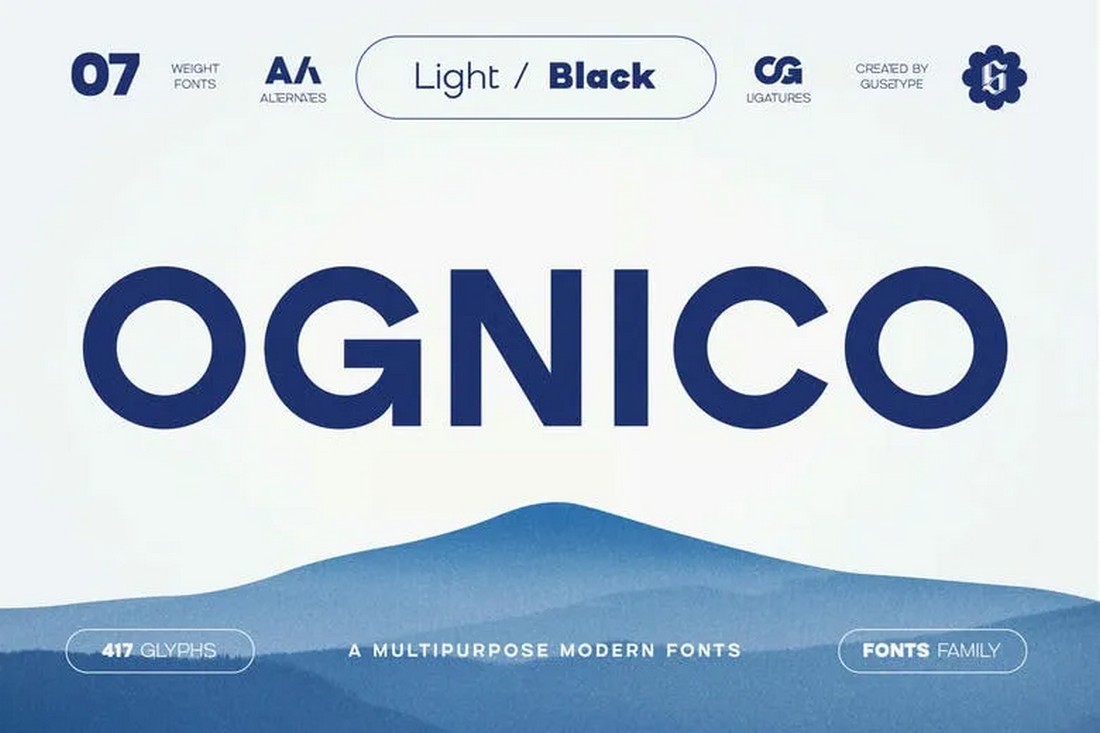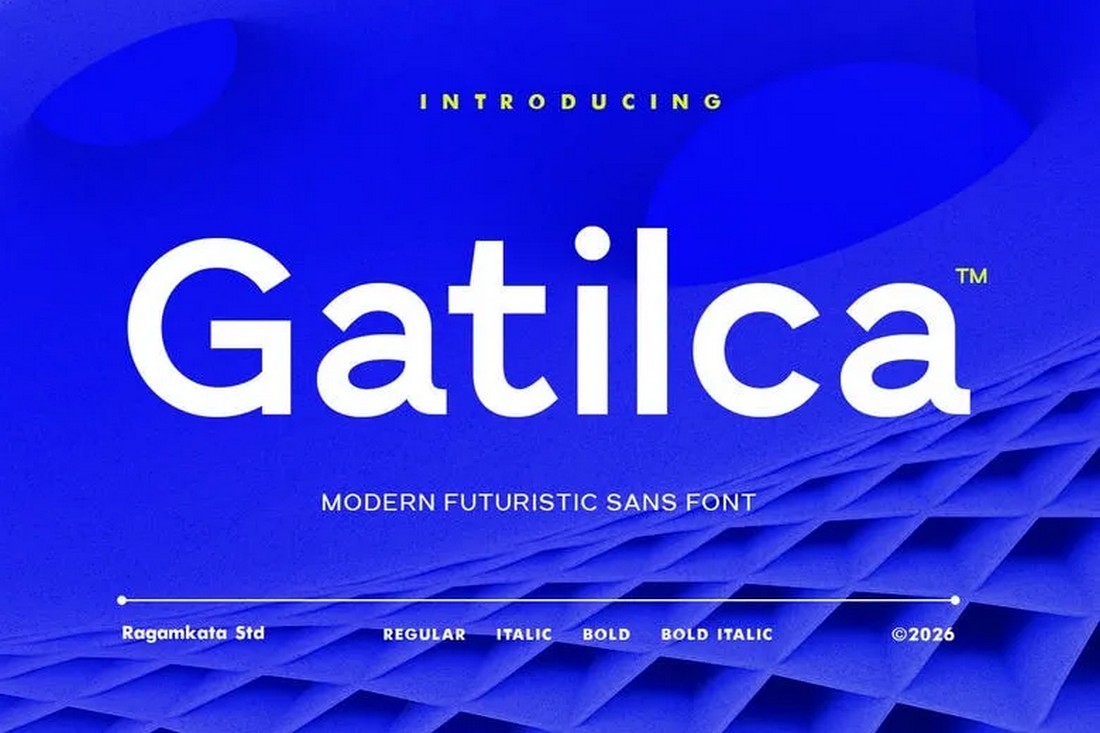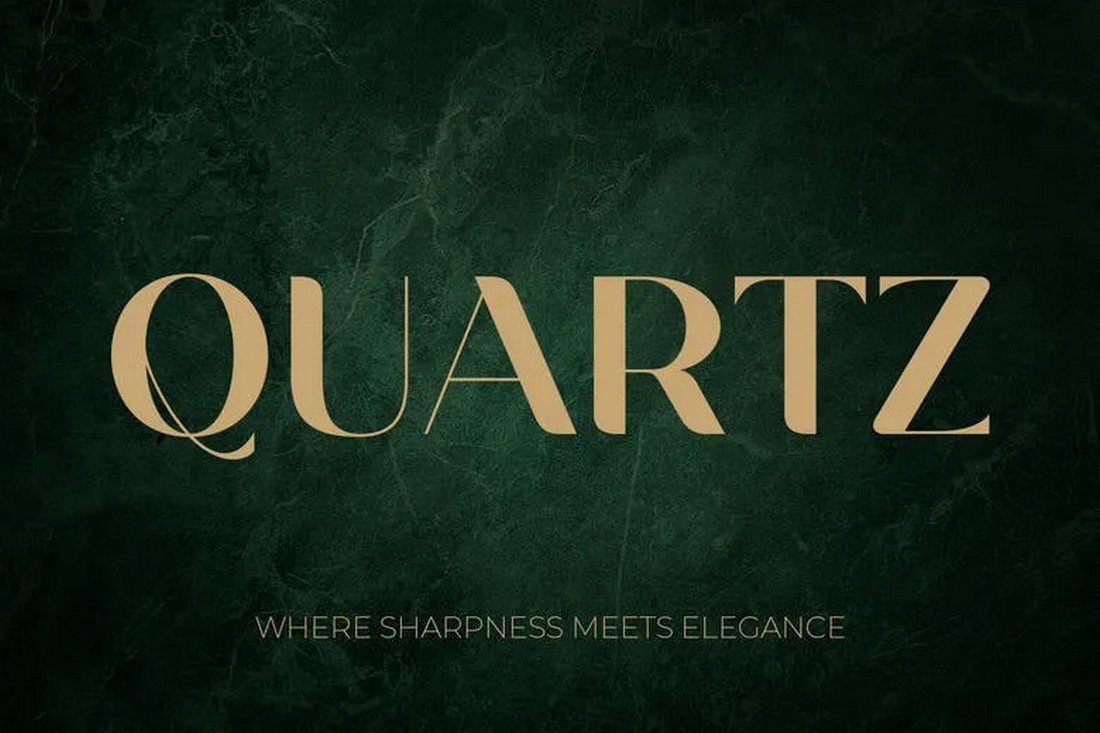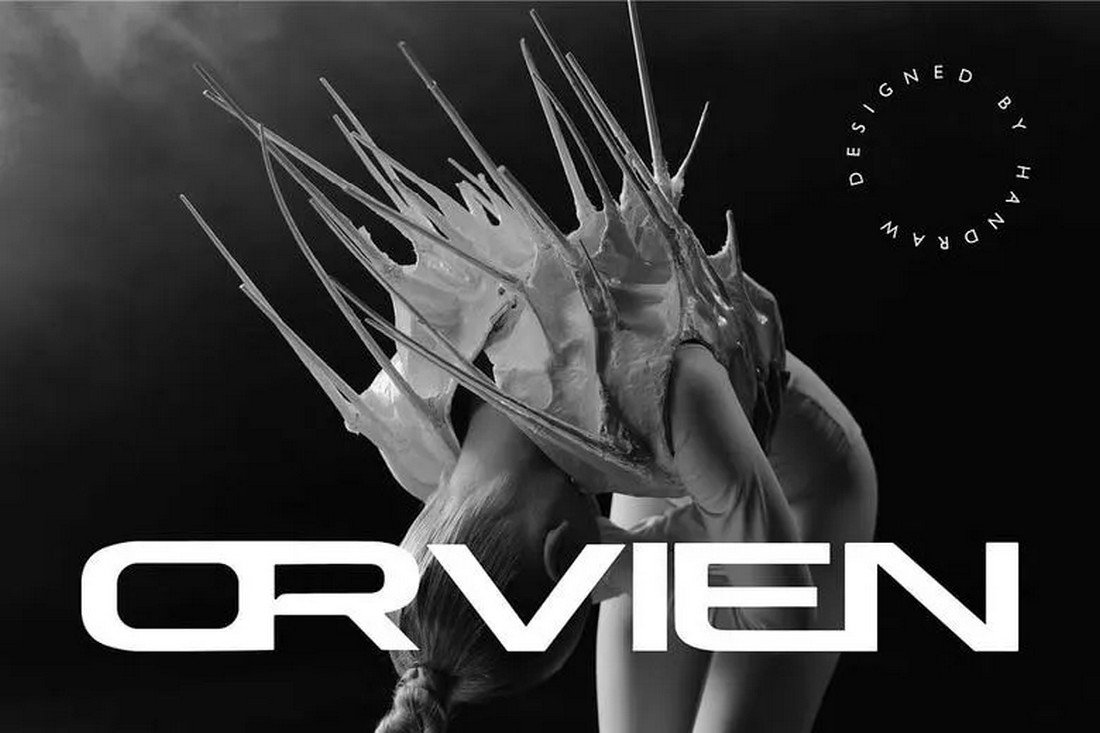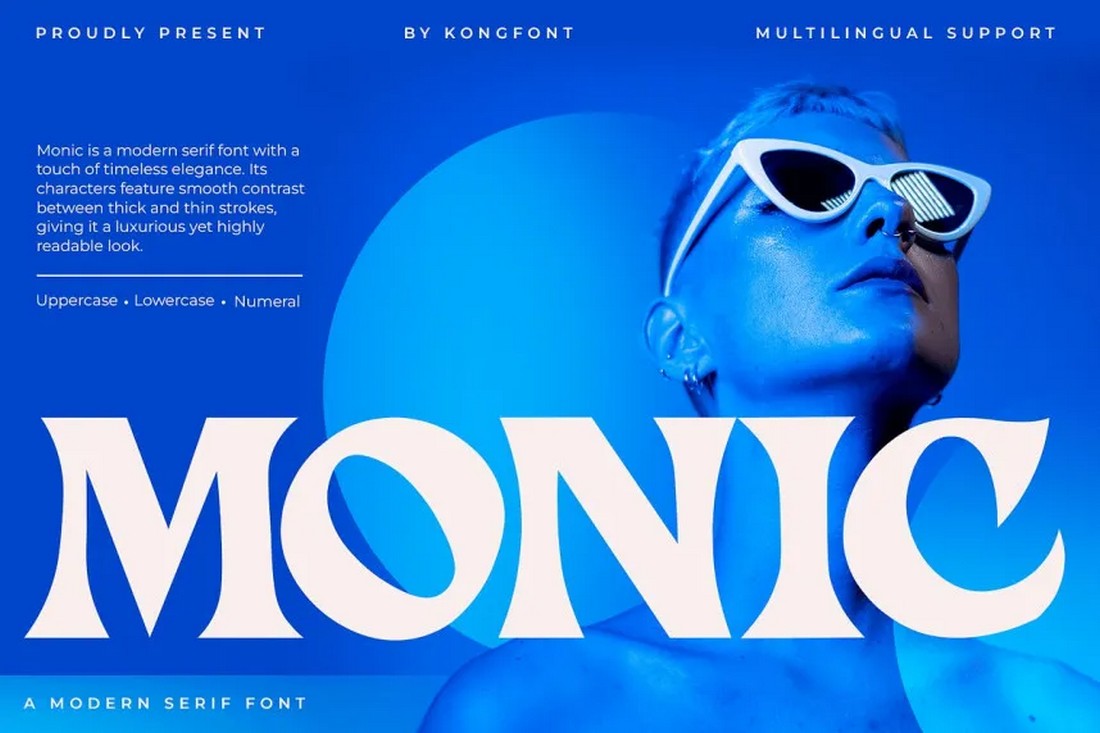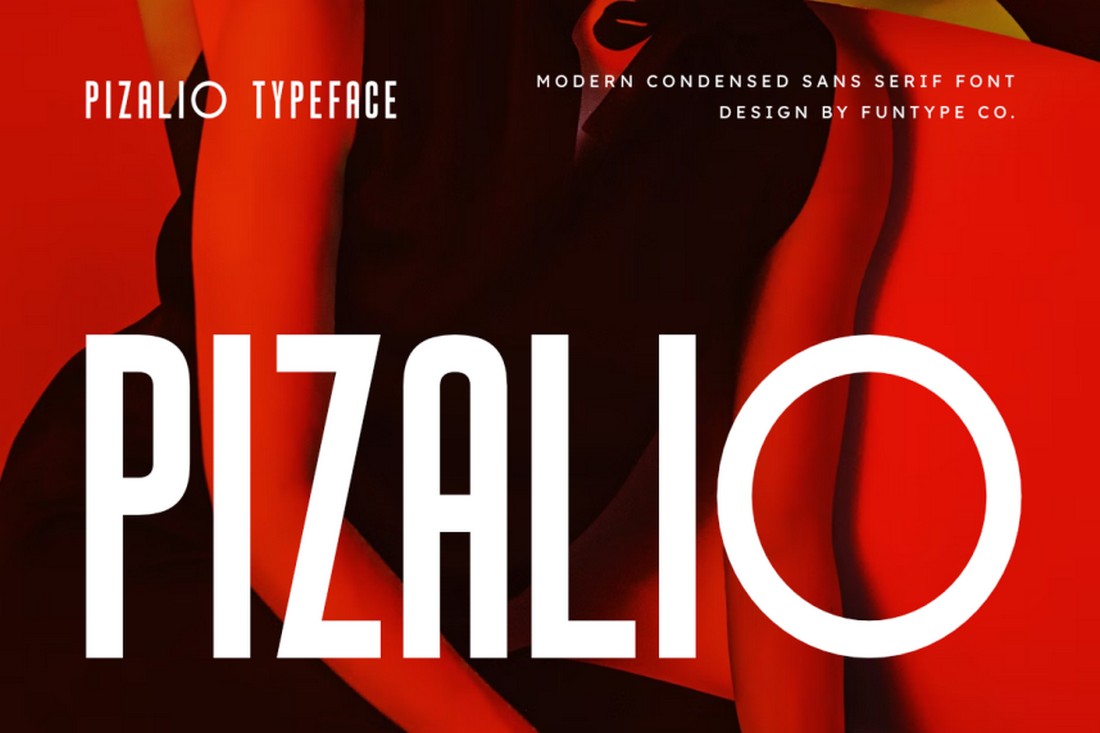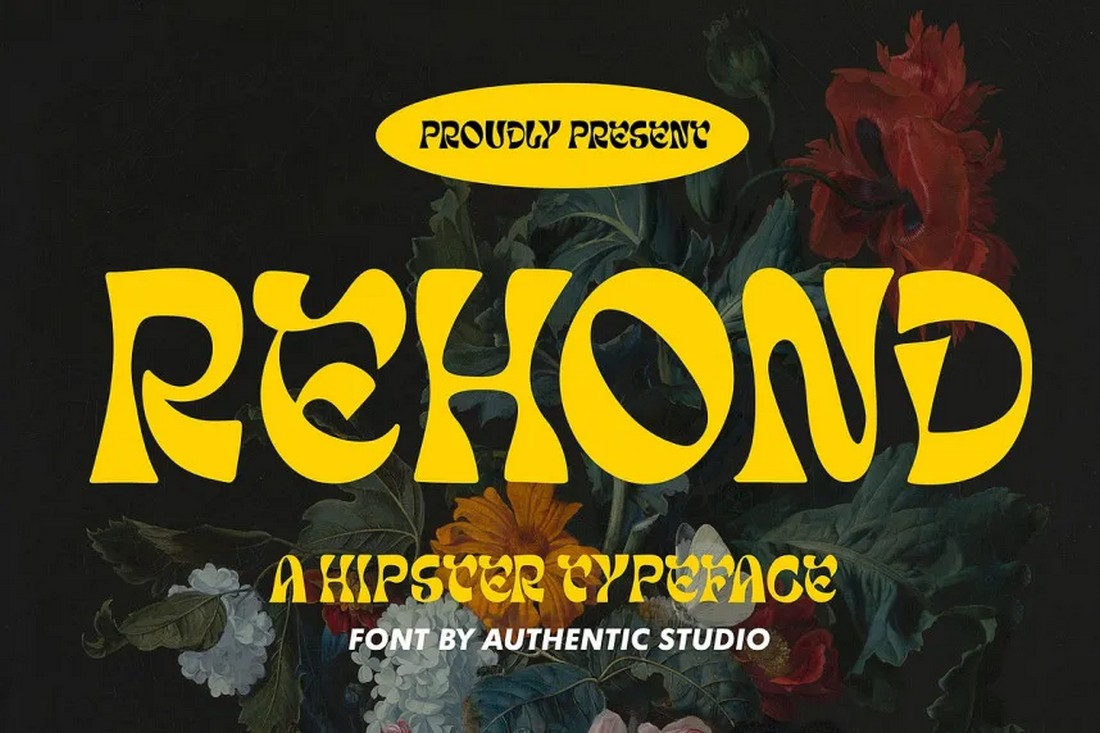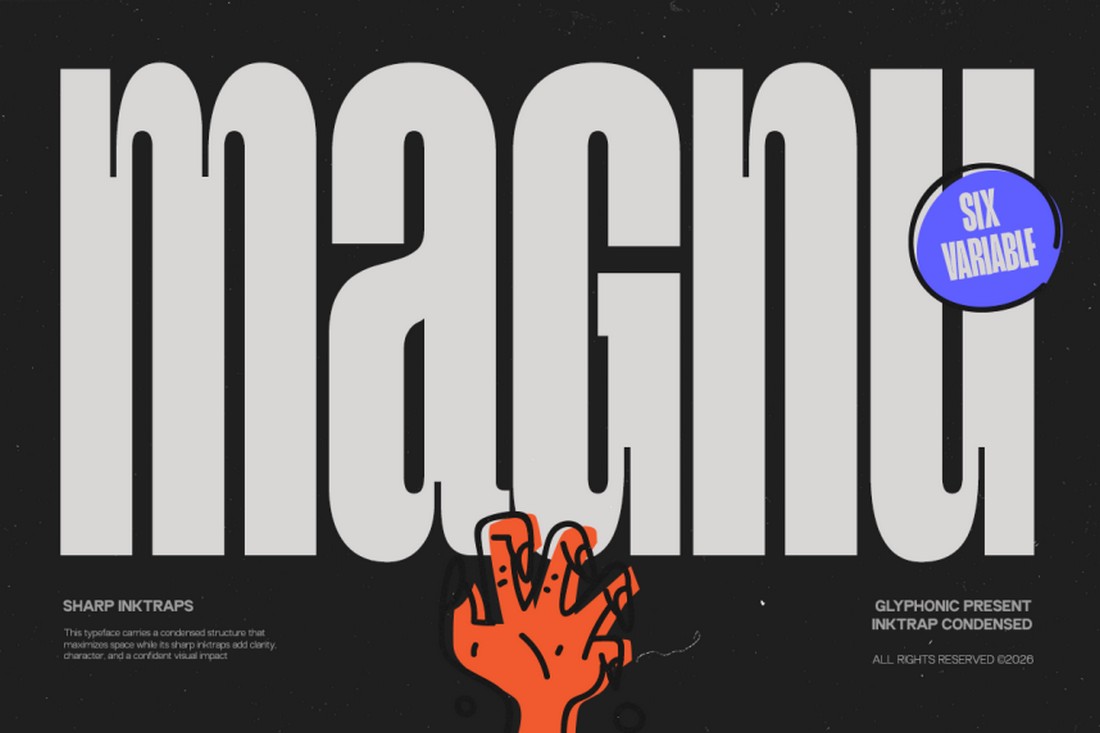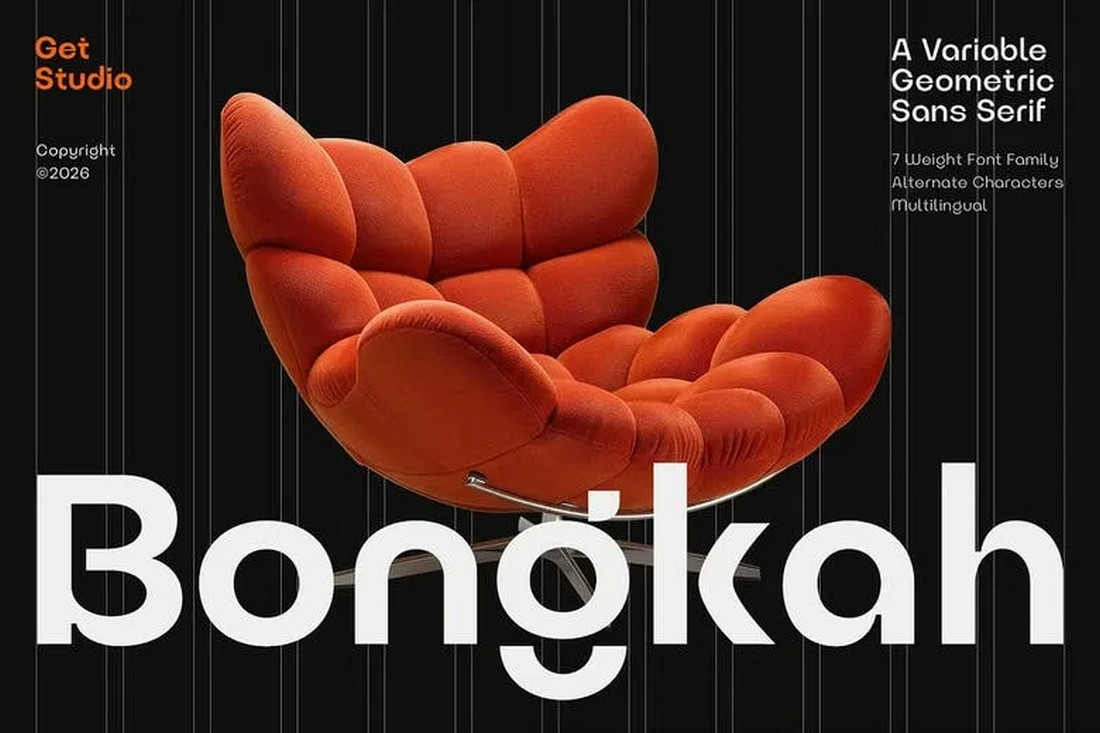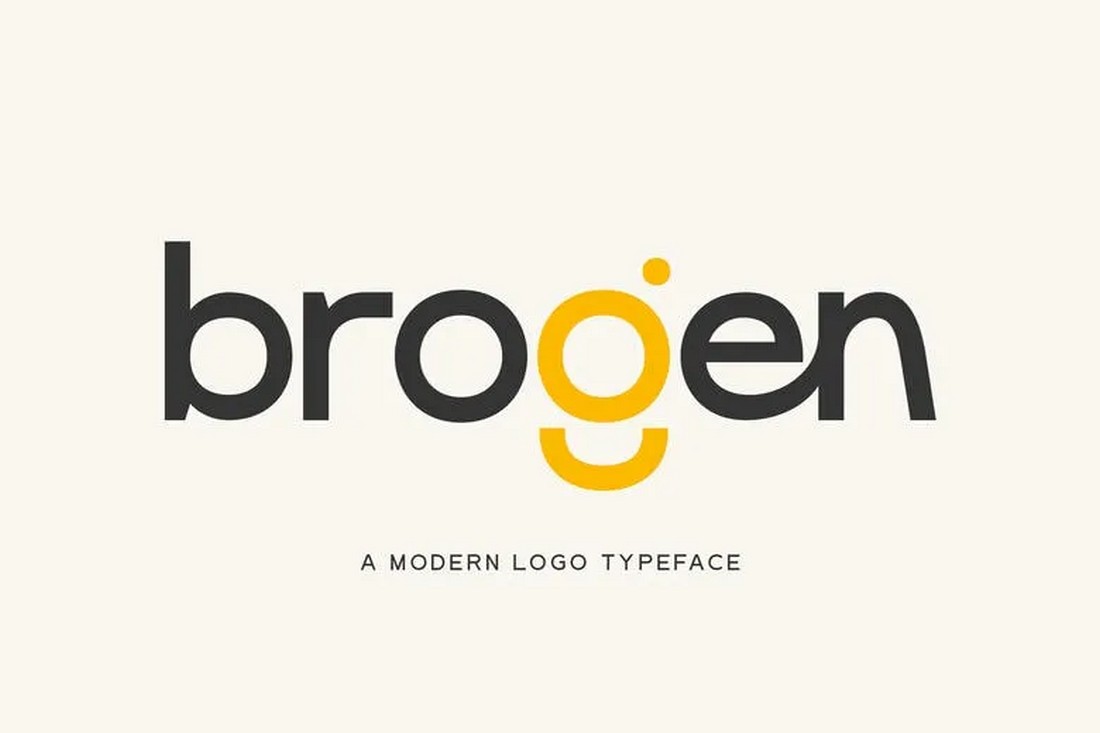
Ognico – Free Futuristic Font
Ognico is a modern display font with bold shapes and a clean geometric structure that makes headlines stand out. It works well for posters, branding, and eye-catching titles that need a strong visual presence.
Gatilca – Free Contemporary Font
Gatilca features a stylish and slightly decorative design with smooth curves and a contemporary feel. It’s a great choice for logos, social graphics, and creative layouts that need a touch of elegance.
Quartz – Free High Contrast Serif Font
Quartz is a sharp, futuristic font with angular cuts and a high-tech aesthetic. It’s ideal for sci-fi themes, gaming visuals, and modern branding that leans toward a digital look.
Orvien – Free Bold Title Font
Orvien offers a refined serif style with clean lines and subtle contrast, giving it a professional and polished appearance. It works well for editorial design, branding, and formal layouts.
Monic – Free Modern Serif Font
Monic is a clean, minimal sans-serif with balanced proportions that keep text easy to read across different sizes. It’s suitable for UI design, branding, and modern editorial layouts.
Pizalio – Free Condensed Font
Pizalio features a bold and expressive display style with unique character shapes that add personality to any design. It’s a strong fit for posters, logos, and creative headlines.
Rehond – Free Psychedlic Style Font
Rehond Display combines thick strokes with playful curves to create a distinctive and eye-catching look. It’s perfect for titles, branding, and designs that need a fun yet bold typographic voice.
Magnu – Free Inktrap Font
Magnu is a modern sans-serif with clean geometry and a professional tone, making it versatile across print and digital design. It works well for business branding, presentations, and structured layouts.
Bongkah – Free Geometric Font
Bongkah brings a bold, handcrafted feel with slightly irregular shapes that add character and texture. It’s ideal for posters, packaging, and designs that benefit from a more expressive, human touch.
Brogen- Free Elegant Font
Brogen is a strong, contemporary font with clean lines and a confident structure that makes it suitable for modern branding. It performs well in headlines, logos, and promotional graphics.
Sangu – Free Sophisticated Serif Font
Sangu is a beautiful serif font that comes with a sophisticated design. It has a perfect look for creating typography designs related to modern fashion, lifestyle, and beauty brands. The free version of the font is available for personal use.
Enoway – Free Modern Display Font
This font features a modern letter design that will add a specific beauty to your title and heading designs. It’s ideal for everything from logo designs to product labels, packaging designs, and more. It’s free for personal use.
NT Fabulous – Free Modern Serif Font
If you’re looking for a clean serif font for a professional project, this font is for you. It comes with an elegant serif letter design that’s especially suitable for corporate and high-end brands.
Jaqueline – Free Bold Script Font
Featuring beautifully flowing characters, this free bold script will help you craft beautiful titles and text for your greeting cards, business cards, and wedding invitations. It’s free to use with personal projects.
Harper – Free Sans Serif Font
If you’re looking for a big, bold font to craft attention-grabbing titles, this font is perfect for the job. Harper is a modern sans serif font with subtle stylistic character designs. It’s ideal for posters, flyers, social media, and more.
Vinesday – Free Vintage Script Font
Vinesday is a free script font featuring a classic vintage vibe. You can use it to craft packaging designs, labels, t-shirts, and everything in between.
Zillion – Free Modern Script Font
This beautiful, free script font is ideal for designing attractive greeting cards, invitations, flyers, and much more. The font comes with a beautifully flowing design and includes ligatures as well.
Rinjani – Free Sans Serif Font
Rinjani is a stylish, modern sans serif font that comes with a set of all-caps letters. It also has outline and fill style fonts with 300 glyphs to choose from.
Winter – Free Handwritten Font
You can design beautiful posters, signage, and product labels using this free font. It comes with a beautiful handwritten letter design, featuring a classic vintage vibe.
Refani – Free Nostalgic Serif Font
This stylish font comes with a creative and nostalgic design featuring classic retro elements. It features serif characters with bold letterforms that are perfect for crafting big bold titles.
Missionary – Free Elegant Serif Font
You can use this free serif font to design modern and elegant typography for your design projects. The font includes uppercase and lowercase characters and it’s free to use with your personal projects.
Maderon – Free Condensed Font
If you’re looking for a font with a unique letter design to craft attractive headings, this font is perfect for the task. It features narrow and condensed letters with bold designs. The font is free for personal use.
Rovalen – Free Modern Serif Font
Rovalen is one of the most stylish fonts on our list. It features a modern serif letter design decorated with curves and serifs. The font is perfect for fashion, lifestyle, branding, and many other types of designs.
Armature – Free Sans Serif Font Family
You can download this font for free to craft unique titles and headings for your modern design projects. The font features a stylish sans-serif letter design and it comes in multiple font weights to choose from.
Gilmoray – Free Elegant Sans Serif Font
The clean-cut look of the font letters gives it a very professional look and feel. It will fit in nicely with magazine covers, posters, advertisements, and various other designs. It’s free for personal use.
Luxiachy – Free Luxury Serif Font
Make your logos and titles look luxurious and expensive with this free serif font. It comes with an elegant letter design for crafting designs for high-end brands. The font is free to use with personal projects.
Raginy – Free Stylish Serif Font
Another elegant and stylish serif font you can download for free. This font is most suitable for fashion and lifestyle-themed designs for adding attention-grabbing titles. It’s free to download and use with personal projects.
Lemonade – Free Creative Script Font
Lemonade is a creative script font featuring a unique handwritten-style letter design. This font is ideal for greeting cards and even branding designs. It’s free for personal use.
Roklin – Free Classic Font
This classic and stylish font is perfect for many different types of title and heading designs. You can use it to design typography for everything from posters to custom t-shirts and even brand logos.
Longies – Free Retro Groovy Font
This free font has a very distinctive letter design inspired by groovy typography designs from the 1960s and the 70s. The font is perfect for signage designs and packaging designs.
Strong Heart – Free Handwritten Font
This is a two-in-one font duo that goes really well together. The free version of the font includes the handwritten font from this pair and it’s perfect for adding a personalized look to your designs.
TF Spermo – Free Playful Font
If you’re looking for a unique and creative font with a playful look and feel, this font is perfect for your project. It comes as a free download and you can use it with personal projects.
Mac Sans – Free Modern Display Font
A clean and professional-looking font with a modern letter design. This font is a sans-serif font with a clean-cut look and you can use it for free with your personal projects.
Agina – Free Elegant Serif Font
Agina is a free serif font that comes with an elegant letter design. It’s ideal for crafting branding designs and titles for luxury brands. The font is free for personal use.
Sorhe – Free Stylish Font
This font also comes with an elegant serif lettering design. It will go along great with your high-end branding and product packaging designs, especially related to feminine brands.
Ciroya – Free Bubble Display Font
A fun and playful font featuring a bubble-style letter design. This font is perfect for adding an energetic and creative look to your titles and headings. It’s great for labels and branding designs too.
Thurof – Free Retro Bubble Font
Inspired by classic retro letter designs, this font also comes with bubble letters that look quite cute and adorable. You can use it to craft classic titles and headings for various print and digital projects.
Bifaser – Free Vintage Victorian Font
If you prefer vintage fonts with timeless designs, this one is perfect for your project. It features an elegant letter design inspired by typography designs from the Victorian era.
Rengard – Free Minimalist Font
This font features a very minimalist look with its thin and elegant letter designs. It’s available in regular and italic styles. And the font is free to use with your personal projects.
Nordin Slab – Free Vintage Font
This is a vintage-style slab serif font that comes in regular and outline styles. It features a tall and narrow letter design that will add an extra cool look to your titles and headings. It’s also free for personal use.
Astila – Free Modern & Playful Serif Font
If you’re looking for a stylish serif font with beautiful decorative elements, this free font is a must-have for you. It comes with a set of beautiful letters featuring 100 alternate characters and ligatures. It’s free for personal use.
Zanna – Free Modern Serif Font
This font has all the right characteristics of a modern logo font. You can use it to design elegant logos, labels, titles for posters, and so much more. It’s free to use with your personal projects.
Regarn – Free Variable Display Font
Regarn is a modern font that features subtle retro elements. It’s perfect for everything from designing poster titles to magazine covers and website headers. You can use it for free with personal and commercial projects.
Asikue – Free Classy Bold Serif Font
Askue is a classy font with a bold letter design. This font comes with serif letters that blend 70s retro design elements with modern typography. It’s also free for commercial use.
Crossbar – Free Hand-Drawn Font
This is a hand-drawn brush font that comes with an attractive and energetic design. It’s ideal for crafting big titles for posters and flyers. The font is free for personal use.
Quitery – Free Stylish Serif Font
This font has the perfect look for designing modern typography for fashion, lifestyle, and feminine designs. It’s especially great for branding and product packaging designs. It’s free to use with personal projects.
Choco Bold – Free Retro Font
Choco Bold is a creative retro-style font that comes with a set of bold characters. It also has unique decorative elements that give it an identity of its own. You can use this free font with your personal projects.
Beckan – Free Retro Display Font
The trendy retro look of this font makes it a great choice for crafting logos and branding designs for fashion brands. It comes in regular and outline styles. The font is free for personal use.
NT Epika – Free Modern Serif Font
This is an elegant font that has a set of serif characters. This font is ideal for modern and luxury brands, especially for designing logos, labels, and signage. The free version can be used for personal projects.
Mexa – Free Elegant Serif Font
Mexa is another beautiful free font you can use to craft unique typography designs. It comes with a stylish serif letter design mixed with retro elements. This font is also free for personal projects.
Cotta – Free Elegant Serif Font Font
This is one of the best free serif fonts you’ll find on our list. It features elegant letter designs with beautiful curves to give your typography a bold new look. This font is free to use with personal and commercial projects.
Loving Ambros – Free Luxury Sans Serif Font
Looking for a more extravagant font with stylish letters? Then this free sans serif font is for you. It features a beautiful design that’s been crafted by combining script font with a serif font style. You can use it for free with personal projects.
Lettown Hills – Free Display Font
You can craft beautiful titles and headings for all kinds of designs using this stylish display font. It’s ideal for logos, product labels, and website headers too. The font is free to download and use with personal projects.
Crucial – Free Sharp Serif Font
A clean and professional font with a sharp look. This font is great for all your professional design projects, especially for big brands and corporate businesses. The medium and italic versions of the font are free to use with commercial projects.
Vistol Black – Free Sans Serif Font
Vistol Black is a modern sans serif font family that includes 18 different fonts. It has clean letter designs that are ideal for professional projects. You can download a free version of the font to use with your personal and commercial projects.
Cossines – Free Classy Sans Serif Font
This is an all-caps font you can use to craft big bold titles and headings for your designs. It has clean and modern letters as well. You can use this font for free with your personal projects.
Morning Routine – Free Handwritten Font
If you want to give a creative personal touch to your designs, this free handwritten font is perfect for your project. It features a hand-crafted letter design with tall and narrow letters. It’s also free for personal use.
Ramus – Free Creative Serif Font
Ramus is a serif font family that includes 5 different weights. The free version includes the regular font with basic features. You can use it for free with your personal projects.
Perfect Moment – Free Handwritten Brush Font
This font is for fans of brush-style fonts. It comes with a creative handwritten brush letter design that will fit in perfectly with your flyer and poster designs. It’s free for personal use.
Nortune – Free Bold Title Font
Nortune is a bold title font that features a letter design inspired by modern-vintage typography. It’s perfect for crafting big titles for labels, posters, T-shirts, and much more. You can download it free to use with personal projects.
Brolimo – Free Elegant Modern Font
You don’t always have to spend money to design elegant titles and headings. With this free font, you can craft amazingly beautiful titles at no charge. The free font is part of a big premium font family and you can use it with your personal projects.
Josefine – Free Elegant Serif Font
Josefine is a beautiful serif font. Unlike most other serif fonts, this one features unique serifs that add a personality to each letter. The font is perfect for modern luxury designs. It’s free for personal use.
Better Winter – Free Calligraphy Font
This free font comes with a beautiful calligraphy design that will make your designs much more attractive. It’s especially suitable for social media posts and designs related to the fashion industry.
Little Birds – Free Vintage Script Font
If you’re looking for a font with a different style of design to make your headings stand out, this free font will come in handy. It features a modern-vintage letter design unlike any other font on our list.
Wonder Night – Free Creative Display Font
Whether you’re crafting a poster for a children’s event or designing a book cover, this is a font that will add a unique personality to your designs. The font has a fantasy look and feel that makes designs look magical.
Onamura – Free Experimental Serif Font
Onamura is a beautiful free font that comes with a unique design. If you’re looking for a font with an uncommon letter design, this font is a perfect choice for you. The font is completely free to use with personal and commercial projects.
Gatter Sans – Free Modern Font Family
This free font has a very simple, clean, and modern letter design that makes it a great choice for all kinds of business and creative designs. It’s also free for personal and commercial use.
Senilità – Free Retro Display Font
Featuring a stylishly geometric letter design this font takes inspiration from retro typography styles to offer very unique letter designs. This one is also free to use with commercial projects.
Kirimaru Font – Free Elegant Serif Font
If you’re looking for an elegant serif font to craft a title or logo for a luxury brand, this font will come in handy. It fits in nicely with modern designer brands. The font is free for personal use.
Vikeys – Creative Sans-Serif Font
This font comes with 8 different weights featuring clean-cut modern letter designs. It’s ideal for creative design and agency projects. You can use it for free with personal projects.
EP Stellari – Free Display Font
A unique display font featuring a set of stylish letter designs. This font is ideal for crafting titles and typography with a classic look and feel. It’s free for personal and commercial use.
Cold Daylight – Free Playful Display Font
With this free font, you can add playful and fun titles to your T-shirts, mugs, and poster designs. The font comes with a modern and stylish letter design. And it’s free to use with personal projects.
Rubie – Trendy Free Script Font
Rubie is a beautiful script font that comes with a set of stylish swashes and glyphs. This font is ideal for romantic designs such as Valentine’s Day cards and wedding invitations. It’s free for personal use.
Bahamas – Free Decorative Font
Bahamas is a decorative font that features a very unique and traditional look. It’s perfect for crafting logos and text for restaurants, hotel menus, and many other branding designs. You can use it for free with personal projects.
Aprilia Marelo – Free Handwritten Font
This stylish handwritten font is perfect for crafting business cards, T-shirts, and packaging designs. The font includes lots of glyphs and swashes as well. It’s free to use with personal projects.
The Night Watch – Free Fancy Serif Font
If you’re looking for a fancy serif font for a design with a luxury vibe, this free font is perfect for you. It features a set of very elegant letters combined with an uncommon rounded design. The font is inspired by the famous painting, The Night Watch (1642) by Rembrandt van Rijn.
Luam – Free Sans-Serif Font
Luam is an elegant and simple sans-serif font you can use for free. It comes with a complete set of characters, symbols, and numbers. This font is perfect for branding and title designs.
Dujitsu – Free Display & Titles Font
Dujitsu is a great font you can use to design titles for posters, T-shirt designs, and banners. It features a design inspired by Japanese culture. The font is free to use with your personal projects.
MALER Font – Free Latin & Cyrillic Font
Maler is a unique font that features both Latin and Cyrillic characters. It also has a brush-style hand-crafted letter design. You can download and use this font for free with your personal projects.
Bioweapon – Free Modern Title Font
Bioweapon is a completely free font you can use with your personal and commercial projects. It comes with a modern letter design that will make your poster titles and headings look more attractive.
Discover – Free Bold Brush Font
This free font is a great choice for designing titles for flyers and posters. It features a set of bold letters with a brush-style design. You can use it for free with personal projects.
Salma – Free Sans-Serif Font
Salma is another free sans-serif font featuring a minimal and clean letter design. It’s perfect for everything from titles to body text as it comes in multiple weights. It’s free for personal and commercial use.
Cunia – Free Bold Title Font
The thick and bold letter design of this font makes it the perfect choice for crafting headings and titles. It’s also suitable for business cards and T-shirt designs.
Casanova – Free Serif Display Font
You can download this font for free to use with your luxury-themed designs. The elegant style of the letters will certainly help give your designs a high-end look. It’s free to use with personal projects.
Aquire – Free Futuristic Font
Aquire is a bold title font that comes with a futuristic letter design. It will match quite well with technology-themed posters, flyers, banners, and website headers. You can use it for free with personal projects.
Alegra – Free Minimal Sans Font
This beautifully elegant and minimal font is completely free for you to use with your personal and commercial projects. It includes 12 different styles of fonts featuring more than 2700 glyphs. You can craft all kinds of titles and designs with this font.
Mango – Free Creative Geometric Font
Mango is the perfect font for creative projects that needs to look a bit extraordinary. It features a creative geometric-based lettering design. And it’s also free to use with your personal and commercial design projects.
Abelisa – Free Modern Script Font
A stylish script font for crafting elegant designs. Abelisa is a free script font that comes with a modern design. It’s ideal for crafting titles and headings for fashion and lifestyle-themed design projects.
Hazard – Free Marker Font
Working on a poster or a flyer design? Then this font is perfect for crafting more attractive titles and headings. It’s a stylish marker-style font that comes with a full set of characters and lots of swashes. The font is free to use with your personal projects.
Delich- Handwritten Script Font
Delich is a calligraphy style handwritten font that features a smooth and creative character design. The font can be used as an all-rounder for designing everything from greeting cards to logos, posters, business cards, badges, and much more.
Camar – Free Creative Vintage Font
Camar is a creative free font you can use to design unique titles and headings in various designs. It features a vintage-themed design and has unique character designs that will make your designs stand out from the crowd.
Nathan – Free Vintage Script Font
Another stylish script font with vintage-themed designs. This font is ideal for designing website headers and greeting cards. You can use the font for free with your personal projects.
The Northern – Free Decorative Vintage Font
This is a decorative font that features characters with unique stylistic designs. The font also comes with a vintage layout that will make your titles and headings look like signage from the 1920s. It’s free to use with personal projects.
FLIX – Unique Display & Logo Font
Flix is a bold display font with a stylish rounded character design that gives it a unique identity of its own. It comes in two styles featuring regular and outline typefaces.
Redwing – Free Block Display Font
Redwing is a collection of free fonts featuring a thick and blocky character design. The free version of the font comes with 2 different weights. Both of which are free to use with personal and commercial projects.
Monolith – Minimal Sans Font Family
Monolith is an ultra-minimalist font featuring a thin letter design. This font is most suitable for modern businesses and creative agencies for crafting logos, business cards, and website designs. The font includes multilingual support and it’s available in multiple weights.
North Avellion – Free Font Duo
This is a unique pairing of fonts you can use with your various design projects. It includes a serif fonts and a script font. Both would go perfectly with a greeting card design. The free version might only include a single font.
RNS Sanz – Clean Sans-Serif Font Family
RNS Sanz is a clean and minimalist sans-serif font family you can use with business and corporate books and magazines. This font includes 7 different font weights ranging from light to bold and black. Making it a suitable choice for designing both titles and body text.
Lil Stuart – Free Creative Fonts Collection
Lil Stuart is a collection of modern and creative fonts. It includes typefaces in both blocky title fonts and script font styles. The freebie gives you 3 fonts to test out in your personal projects.
Devant Pro – Modern Narrow Font
Devant Pro is a modern condensed narrow font that features a big and bold design, making it perfect for website headers, posters, banners, flyers, and much more.
Rounded – Free Modern Rounded Font
This beautiful and fun free font is perfect for all kinds of casual designs. It will fit in perfectly with lifestyle and social media graphic designs as well as children’s designs. It’s free to use with commercial projects.
Daytonia – Hand Lettering Script Font
Daytonia is a beautiful hand lettering scrip font featuring a modern-vintage design. The font comes with multilingual support, alternates, swashes, and more. It’s perfect for designing greeting cards, invitations, and posters.
AMAX – Free Futuristic Font
Another unique free font with a futuristic design. This font is perfect for logo and badge designs. You can use it for free with both personal and commercial projects.
Indigo – Chunky Font Duo
Indigo is a modern font featuring a chunky design, which makes it perfect for designing logos for startups, websites, and creative brands. The font is available in 2 versions: Regular and outline.
Reborn – Free Stylish Display Font
Reborn is a creative display font with a stylish design. This font is most suitable for designing headings and titles for casual and quirky design projects. It includes uppercase and lowercase letters as well as lots of ligatures.
Nomads – Condensed Font
Nomads is a condensed font that comes with a vintage design. It’s best for crafting badges, labels, and logos for vintage-themed businesses and brands. The font comes in Regular, Rounded, and Vintage styles.
Void – Free Creative Sans-Serif Font
Void is a beautifully minimalist sans-serif font that features a modern design. The font comes in regular, thin, and bold versions. It also includes both uppercase and lowercase letters.
BERLIN Rounded – Sans Serif Font
Berlin is a beautiful sans-serif font featuring a set of rounded characters. This font is perfect for making logos, banners, and website headers for modern startups and corporate agencies. The font comes in 4 different weights.
Nevrada – Free Chic & Luxury Serif Font
Nevrada is an elegant free serif font you can use to craft professional and business designs such as logos and badges for luxury brands. The font comes with uppercase and lowercase characters and lots of alternates.
Fonseca – Art Deco Font Family
Fonseca is a beautiful font family with a design inspired by classic art deco from the early 20th century. This font is simply perfect for designing book cover titles and headings. The font includes a total of 16 typefaces including 8 weights with obliques, alternates, and with more than 340 glyphs.
Seconds – Free Rough Brush Script Font
Seconds is a stylish brush script font featuring a rough textured design. This font includes uppercase and lowercase letters with natural designs. You can also use it for free with commercial and client projects.
Supremacy – Modern Script Font
Supremacy is a modern calligraphy font featuring an elegant design that’s ideal for making product labels, posters, and logos. The font includes both uppercase and lowercase letters as well as symbols.
Genuine – Free Bold Title Font
Genuine is a free font that comes with thick bold design. This font is ideal for crafting titles for posters and website headers. It includes all-caps letters and lets you use it in both personal and commercial projects for free.
The Huntsman – Vintage Script Font
The Huntsman is a vintage-themed script font that features a stylish handmade design. The font comes in 4 styles including script rounded and sans regular. The font also includes lots of swashes, alternates, and symbols.
Wingko – Free Creative Script Font
Wingko is a fun and quirky font you can use in your creative projects. Especially to create posters, T-shirt designs, social media covers, and headings.
Potra – Free Futuristic Font
Potra is a modern typeface with a futuristic design. This font is ideal for crafting social media posts, T-Shirts, website headers, and more.
Milea Handwritten Brush Font
Milea is an elegant brush font with a natural handwritten style. It’s perfect for everything from book covers to wedding invitations, website designs, blogs, and much more.
Moon – Modern Rounded Typeface
Moon is a beautifully minimalist sans-serif font with rounded character design. This font is perfect for designing everything from website headers to poster titles and much more.
Nanotech – Free Clean Sans-Serif Font
Nanotech is a modern sans-serif font that features a professional design. It’s ideal for everything from designing website headers to poster titles, logos, and more.
ADCA – Free Bold Geometric Font
ADCA is a font that’s been crafted to perfection using geometric design. The font is completely free to use with your personal and commercial projects.
Highfield – Free Luxury Sans-Serif Font
Highfield is the perfect font for designing logos, badges, and signage for luxury brands. The font is free to use with your personal projects.
Belgian Signature – Free Elegant Script Font
This elegant free script font comes with a beautifully stylish design that makes it suitable for all types of print and digital designs. It’s free to use with personal and commercial projects.
Mojito – Free Semi-Condensed Font
Mojito features a very tall and narrow character design that makes it most suitable for designing titles for posters and website headers. You can use it for free with personal projects.
Tahu – Free Script Font
Tahu is a modern script font with a minimalist design. It’s perfect for T-shirt designs, website headers, and social media posts. The font is free to use with personal and commercial projects.
Odachi – Free Brush Font
Odachi is an elegant free brush font with a rough design. It’s completely free to use with your commercial projects. It includes numbers, alternates, and punctuations as well.
Hesland – Free Vintage Script Font
Hesland is a free script font that features a stylish vintage design. You can use the free version of the typeface with your personal projects.
Sweet Buttermilk – Free Script Font
This creative free script font comes with a handwritten-style design that will surely add a unique look to your digital and print design.
Mathison – Free Serif Display Font
Mathison is a modern serif font you can use to design stylish headers and titles for websites, posters, banners, and even logos. The font is free to use with your personal and commercial projects.
Botera – Free Serif Stencil Font
Botera typeface comes with a unique and elegant stencil design that is ideal for designing logos, business cards, and signage for luxury and fashion brands.
Bondi – Free Creative Font
Bondi is a free creative typeface that features a unique character design. The fun and quirky design make this a great choice to use with entertainment-related design projects.
Milkshake – Free Serif Font
Milkshake is a stylish free font you can use to create professional titles, labels, logos, and more. It’s free to use with your personal and creative projects.
Mellgatha – Free Monoline Script Font
This font comes with a unique monoline script design that will fit in nicely with your creative greeting card, business card, invitation card, and social media post designs. It’s free for personal use.
Apex MK3 – Free Display Font
Apex is a geometric sans-serif font that features thick bold design. This font is ideal for crafting titles and headers for websites and blogs. The free version of the font comes with extra light and medium font weights.
Aquatico – Free Stylish Rounded Typeface
Aquatico is a stylish free font featuring a rounded design. The font design of the font is inspired by the deep sea. The free version of the font can be used with your personal projects.
Julietta Messie – Elegant Script Font
This elegant free font comes with a script design, which is most suitable for designing greeting cards, postcards, and invitations. The free version of the font is limited to personal use only.
Rumble Brave – Free Display Font
This font features a creative design with a vintage vibe. It’s a dingbat brush script font featuring both uppercase and lowercase letters along with lots of glyphs. The font is free to use with your personal projects.
Skyfont – Free Sans Serif Font
Skyfont features a design that will make your text look like the flight information display board at airports. The font is ideal for designing creative headers and titles for websites.
Moalang – Creative Free Display Font
Moalang is a stylish free display font featuring unique artistic curves and decorative elements. The font can be used to design creative book covers, posters, flyers, and more.
Yessica – Free Sans Serif Font
Yessica is an elegant free font that features a classic sans serif design. The font is perfect for using with designs related to luxury brands and fashion brands. The free version of the font can be used with your personal and commercial projects.
Giveny – Free Serif Font
Giveny is a free serif font that features a modern and professional design. This font is perfect for designing titles, logos, and promotional material. You can use the free version of the font with your personal projects.
Belinda – Free Scrpt Font
Belinda is the ideal font you can use to design business cards, invitations, and greeting cards. It has a unique script design that gives it a stylish signature-like look and feel.
Coldiac – Free Luxury Serif Font
Coldiac is a luxury font that’s most suitable for creating logos, headers, and other branding designs for luxury businesses and fashion brands. The free version of the font is for personal use only.
Halfomania – Free Sans-Serif Font
Halfomania comes with a modern and futuristic sans-serif design. It’s perfect for designing unique posters, headers, book cover, and titles for many different types of design projects.
Wanderlust – Free Serif Font
Wanderlust is a modern serif font that comes with a unique design of its own that will definitely make your creations stand out from the crowd. It’s best for creating bold headers for websites and posters.
Harlend – Free Script Font
Harlend comes with a creative vintage-themed design. The free script font can be used with your personal projects, including posters, banners, and social media posts.
Chillout – Free Script Font
Chillout is a script font that features a modern and a hipster-style design. The creative design of the font makes it ideal for posters, greeting cards, and website header design.
Adallyn – Free Serif Font
Adallyn is a professional serif font with a classy design. It’s best for designing business cards, logos, website headers, and banner for business and professional works.
Railey – Free Handwritten Font
Railey is a beautifully modern handwritten script font you can use with various design projects, including web design, greeting cards, designs related to kids, and more. The font is free to use with your personal projects.
Machineat Script Font
This brush style script font features a mixed modern and vintage design that will surely add a certain elegance to your designs.
Macbeth – Free SVG Font
This creative brush-style SVG font comes to you free of charge. You can use it with various projects. It’s compatible with Photoshop CC 2017 and Illustrator CC 2018 or better.
Peace Sans – Bold Font
This bold font has been crafted to perfection to help you instantly grab your audience’s attention. It’s free to use and comes with glyphs, alternates, and punctuations.
Badriyah Script Font
This signature-style handwritten font has a certain elegance to it that makes it most suitable for designing logotypes, business cards, and product tags.
Coves – Free Font
Coves is a modern typeface that comes in two light and bold weights. The font is free to use with your personal projects.
Pink Blue font
Pink Blue is a modern font with a stylish brush design. This font is ideal for pop-culture designs, posters, T-shirts, and more.
MADE Evolve Sans
Evolve is a futuristic space-themed font that’s perfect for crafting website headers, social media posts, posters, and even logo designs.
Outistyle Free Font
This brush script font comes with a unique rough design. It’s ideal for designing labels, quote posts, badges, greeting cards, and more.
Antiophie – Free Script Font
Another script font with a unique design. This free font has a stylish design made specifically for titles, book covers, headers, logos, and other branding works.
Shella Font Trio
Shella is a bundle of 3 different typefaces with various styles. Featuring a hand brushed design, this font will allow you to craft unique and decorative web and print graphics.
Rocket Clouds Free Font
A retro-themed font featuring a design inspired by the 1980s. The font is free to use with your personal projects.
Sunset Signature Font
Sunset is a handwritten font with a signature style design. You can use it to craft product labels, logos, headers, and more. The font is free to use with personal projects.
Hensa – Free Brush Script Typeface
Hensa is a beautiful and a free brush script font you can use to design greeting cards, social media posts, book covers, and other designs.
Bourbon Grotesque – Free Font
Bourbon is a creative display font that comes with a bold design for crafting effective headers, titles, posters, and flyers.
IronHead – Free Font
IronHead is a vintage-themed display that you can use to design website headers, logos, badges, signage, and banners with a retro design.
Willful Handwritten Brush Font
This beautiful handwritten brush font is perfect for many different types of creative projects, including book covers, posters, social media posts. And more.
Homemade Brush Typeface
This beautiful brush font is ideal for designing greeting cards. It’s also perfect for website headers, social media posts, posters, and more.
Vindica Rebel Typeface
Vindica is a creative brush font with a unique design. It’s best for book covers, posters, and flyer designs.
Highlander Marker Script
Highlander is an elegant script font that you can use to design posters, website headers, and banners. It includes ligatures, splashes, and more.
Millennium Blackletter Typeface
Millennium is a blackletter font you can use to design unique logos, website headers, posters, and flyers. It includes fonts in regular and rounded styles.
Quantum – Free Font
Quantum is a modern font with a stylish design that gives out a sci-fi and a space vibe. It’s ideal for crafting logos and headers.
Lactosa Bold Script Free
This creative script font is perfect for designing website headers, social media graphics, T-shirts, and greeting cards.
Monkstead Font Free
A classic display font with a vintage design. You can use this font to design posters, banners, headers, and more. The round version of the font is free to download.
Salmela – Free Calligraphy Font
This elegant free font is perfect for luxury and fashion related designs as well as letterheads, greeting cards, and wedding invitations.
Break – Free Typeface
Break is another modern typeface with a creative design. It’s completely free to use with commercial and personal projects.
Mosk Free Typeface
Mosk is a clean and a minimalist font that you can use to craft logos, website headers, posters, and much more.
Nature Spirit – Free Vintage Font
This font comes with a unique vintage-themed design that’s perfect for designing badges, product labels, and headers.
Oraqle – Free Script Font
Oraqle is a beautiful brush lettering font that features a modern and a creative design. It’s perfect for T-shirt designs, posters, social media graphics, and more.
Beautiful Bloom – Free Brush Font
This free brush font has been handcrafted to perfection. It will definitely add a certain uniqueness to your own designs.
Facón Free Font
This font comes with an uncommon design that’s most suitable for designing eye-catching headers, logos, badges, and titles.
Baksoda Free Font
Baksoda is a creative and a modern calligraphy font that you can use to design greeting cards, wedding invitations, and various other designs.
Quick – Elegant Sans Serif
Quick is a thin sans-serif font that features a minimalist design. It’s ideal for designing logos, website headers, and social media posts.
Billy Ohio Typeface
This handwritten brush script font can be used to design beautiful greeting cards, T-shirts, website headers, and more.
Almairah Signature Font
This modern signature font features a creative design that’s perfect for crafting logos, product labels, badges, and more.
Raph Lanok Typeface
This free font will come in handy when designing luxury brand product labels, logos, and website headers.
Significent Wild Brush
Another creative handwritten brush font you can use with various print and web designs. You can use it free with personal projects.
6 Popular Font Styles (+ Best Free Fonts for Each)
If you’re new to design, it’s important to get a basic understanding of different types of fonts and how to use them.
Serif Fonts
In some fonts, you’ll notice small lines at the edges of the characters. These are called serifs. Serif fonts are typefaces that feature elegant font designs. They are mainly used in professional and business designs.
Sans-Serif Fonts
Sans-Serif fonts are typefaces that feature clean character designs. The characters in these fonts don’t have any lines (or serifs) at the edges. Sans-serif fonts are commonly used in creative and casual designs. And they are well-known to improve readability as well.
Script & Handwriting Fonts
These are the fonts with swirly lines and curvy characters. Script and handwriting fonts are popular in business cards and stationery designs.
Vintage & Retro Fonts
Vintage and retro fonts feature old-school character designs that will take you all the way back to the early 1900s and even to the old Victorian era. These fonts are great for crafting product labels and signage.
Graffiti Fonts
Just as the name suggests, graffiti fonts are the typefaces that feature graffiti-style designs. They are commonly used in print designs such as T-shirts and posters.
Brush Fonts
Brush fonts feature characters that look like they were drawn using a paintbrush. These fonts are ideal for designing poster titles, book covers, and more.